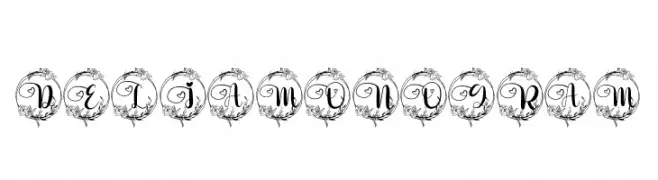
An ornate script font with floral monogram frames, exuding vintage elegance.
A decorative monogram font with uppercase letters in ornate circular frames.
A decorative serif font with ornate circular frames around each letter.
Intricate floral and ornamental designs with detailed natural motifs.